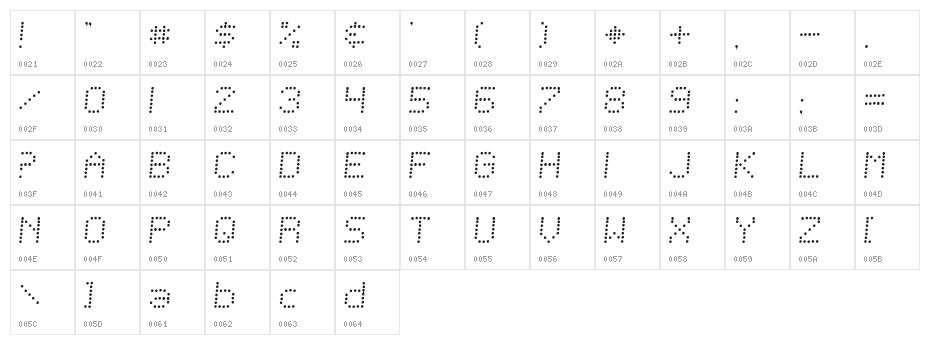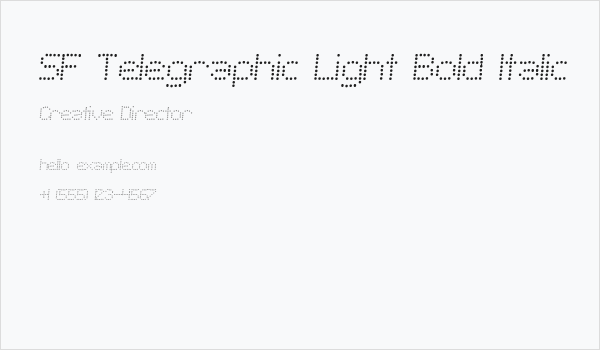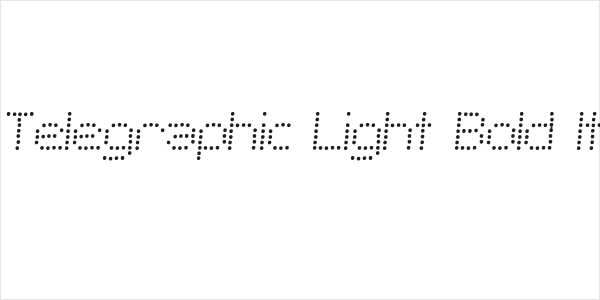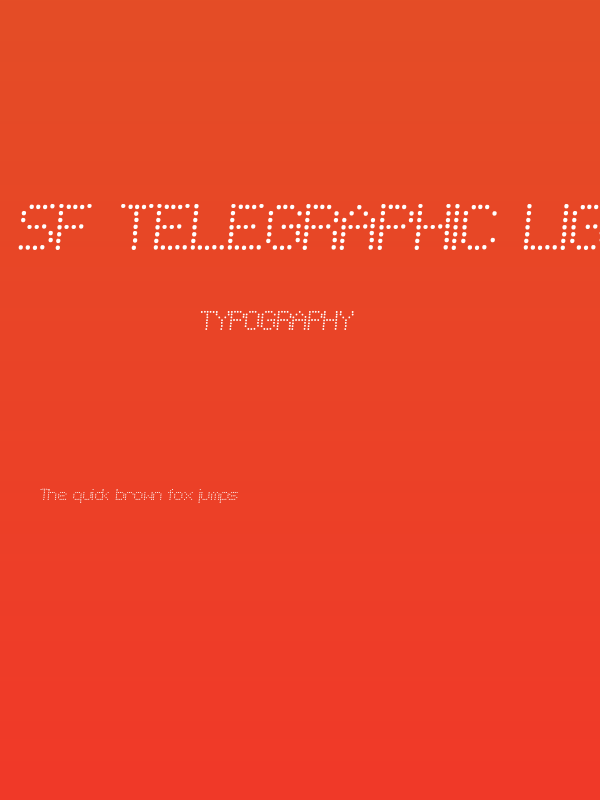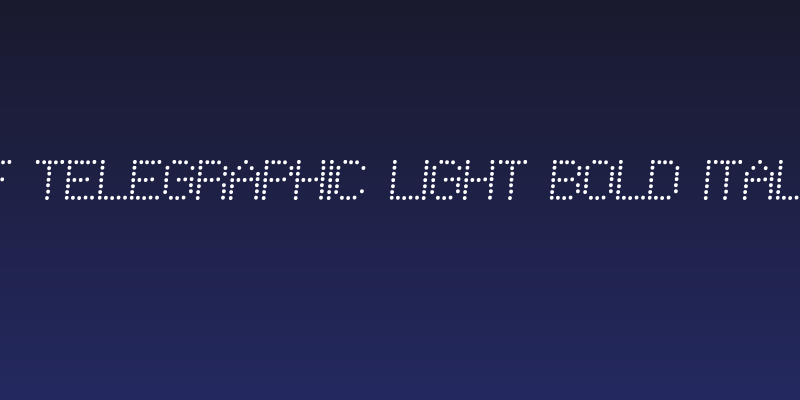
SF Telegraphic Light Bold Italic Font
SF Telegraphic Light Bold Italic Description
This font features a unique dot matrix design, reminiscent of old telegraph and digital displays. Each character is composed of a series of evenly spaced dots, creating a pixelated effect that is both modern and retro. The uppercase and lowercase letters maintain a consistent height, while the numerals and special characters are designed to match the overall aesthetic. The font's style is clean and geometric, making it suitable for digital-themed projects or designs that require a tech-savvy look.
| Use Case | Logos, Digital displays, Tech-themed designs |
| Proposed Projects | Ideal for digital displays, tech-themed graphics, retro video game designs, and futuristic branding. |